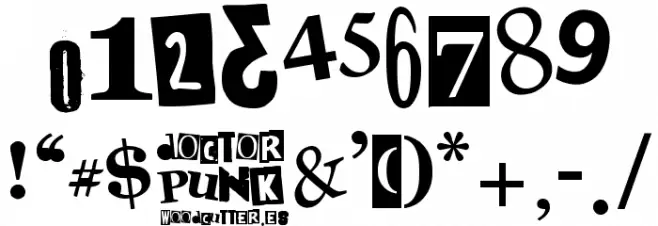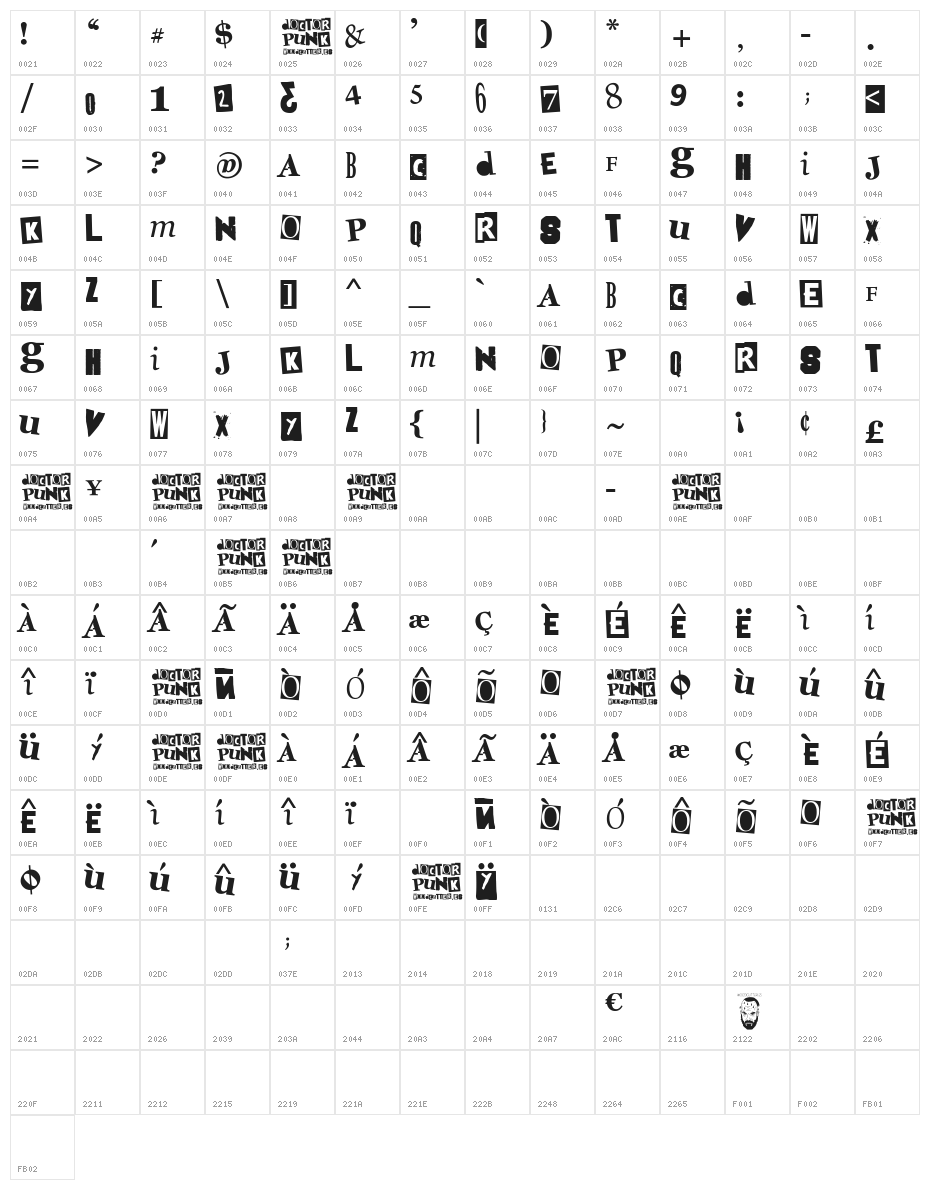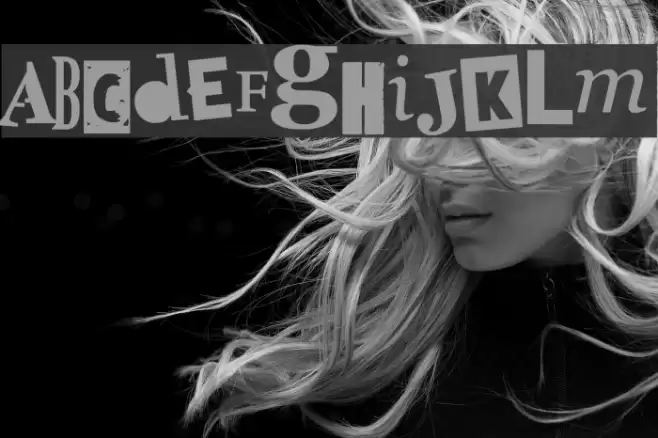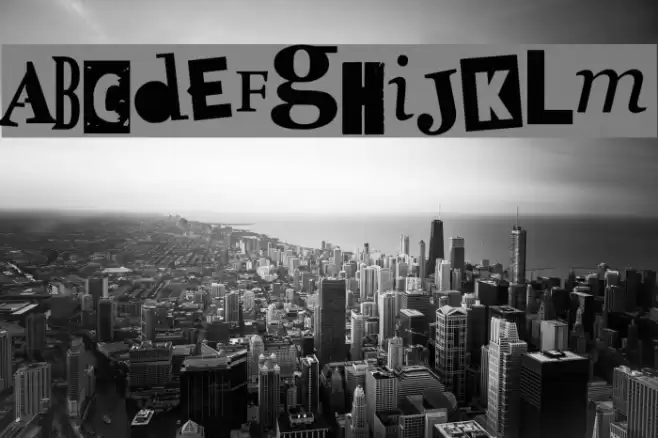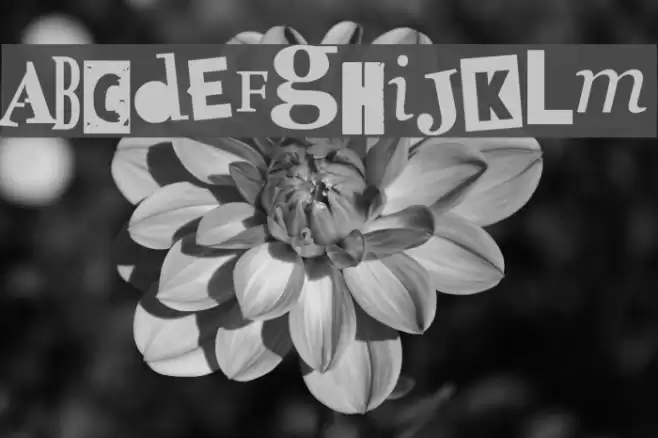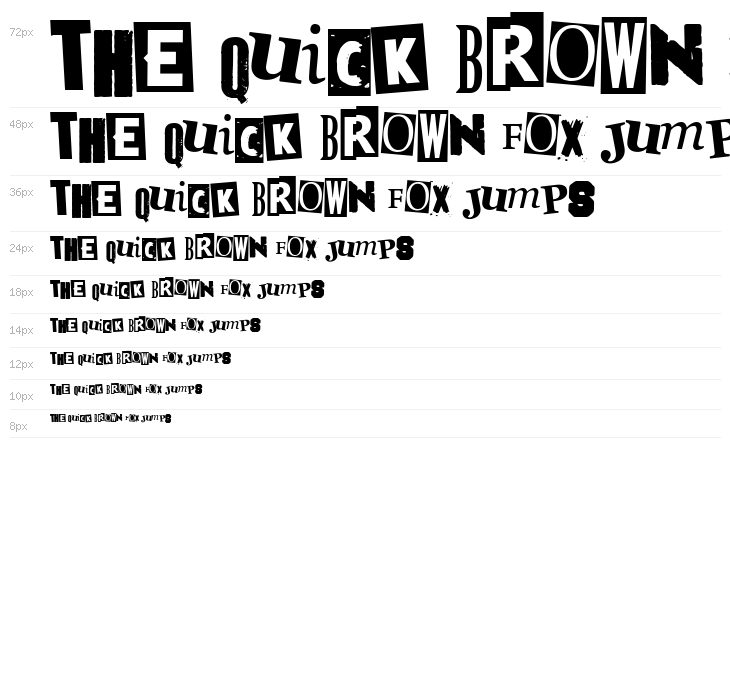
doctor punk Font
This font is a bold and eclectic mix of styles, reminiscent of a ransom note aesthetic. Each character appears to be cut from different sources, creating a collage effect that is both chaotic and intriguing. The uppercase and lowercase letters, as well as numbers and special characters, vary significantly in style, with some letters featuring serif elements while others are sans-serif or even decorative. This diversity in design gives the font a punk rock vibe, making it stand out with its rebellious and unconventional appearance.
| Overall Style | Punk, Eclectic, Rebellious |
| Use Case | Logos, Posters, Album Covers |
| Proposed Projects | Ideal for music album covers, edgy posters, zines, or any project requiring a rebellious, unconventional look. |